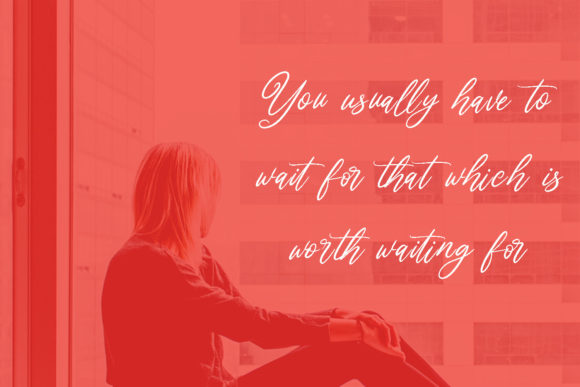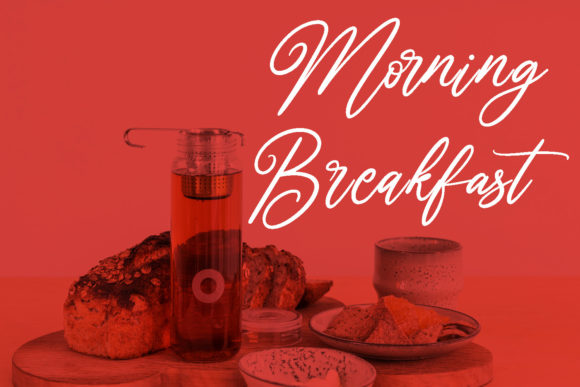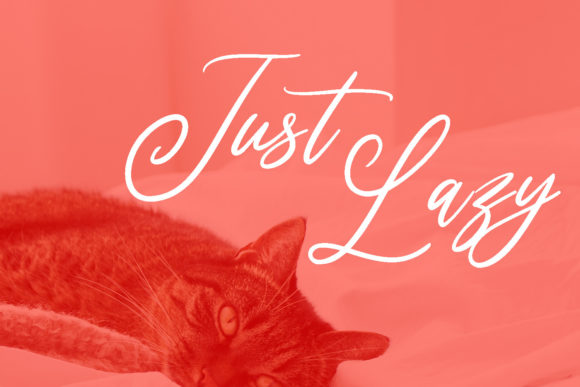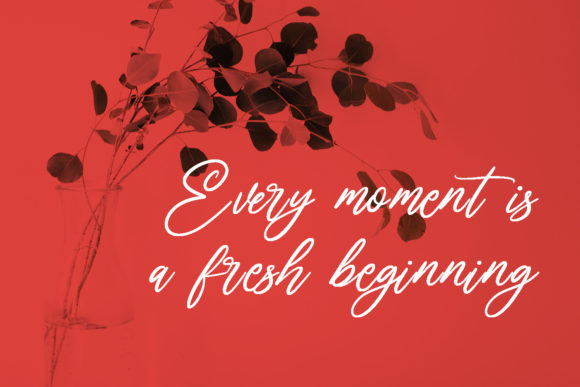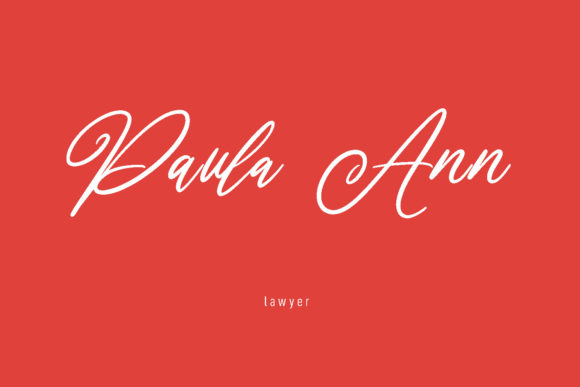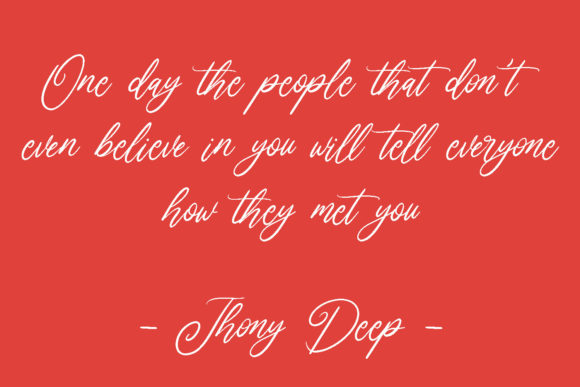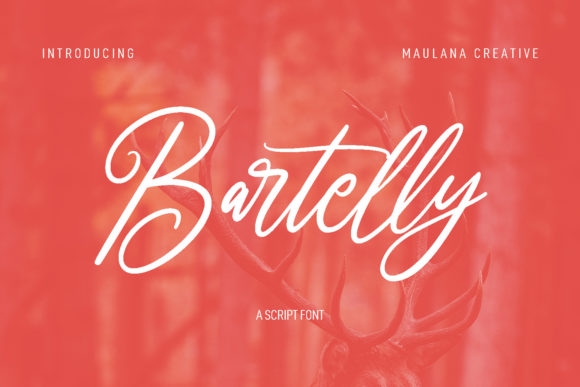
Bartelly Script Font: Elevate Your Designs with Elegance and Sophistication
In the world of typography, a well-crafted font can make all the difference in elevating your design from ordinary to extraordinary. If you’re a designer or crafter looking for a font that exudes elegance and sophistication, look no further than the Bartelly Script Font. This stunning script font is perfect for a wide range of design projects, from logos and t-shirt printing to creative products and more.
The Beauty of Bartelly Script Font
Bartelly Script is a fancy script font that boasts beautiful and balanced characters, carefully crafted to fit seamlessly into the world of large design. Its unique and flowing style is sure to capture the attention of your audience, making it an ideal choice for designers and crafters who want to create a lasting impression.
One of the standout features of Bartelly Script Font is its versatility. Whether you’re working on a branding project, creating custom merchandise, or designing a website, this font is sure to adapt to your needs. Its elegant and refined style makes it perfect for a wide range of applications, from formal and professional to creative and playful.
Key Features of Bartelly Script Font
- Beautiful and balanced characters: Each character in the Bartelly Script Font has been carefully crafted to ensure that it is both aesthetically pleasing and highly legible.
- Fancy script style: The font’s script style is perfect for creating elegant and sophisticated designs that are sure to impress.
- Versatile and adaptable: Whether you’re working on a logo, t-shirt, or website, Bartelly Script Font is sure to adapt to your needs.
- Perfect for branding projects: The font’s unique and memorable style makes it an ideal choice for branding projects, helping you to create a lasting impression on your audience.
Why Choose Bartelly Script Font?
With so many fonts to choose from, why should you choose Bartelly Script Font for your next design project? Here are just a few reasons why this font stands out from the crowd:
- Unique and memorable style: The Bartelly Script Font has a unique and memorable style that is sure to capture the attention of your audience.
- Elegant and sophisticated: The font’s elegant and sophisticated style makes it perfect for creating high-end designs that exude luxury and refinement.
- Highly legible: Despite its elegant style, the Bartelly Script Font is highly legible, making it perfect for use in a wide range of applications.
Here are a few tips for getting the most out of the Bartelly Script Font:
- Use it sparingly: While the Bartelly Script Font is beautiful, it can be overwhelming if used too much. Use it sparingly to create a lasting impression.
- Pair it with other fonts: The Bartelly Script Font pairs well with other fonts, making it perfect for use in combination with other typography.
- Experiment with different sizes and colors: Don’t be afraid to experiment with different sizes and colors to find the perfect combination for your design.
In conclusion, the Bartelly Script Font is a stunning script font that is perfect for designers and crafters looking to elevate their designs with elegance and sophistication. With its beautiful and balanced characters, versatile style, and high legibility, this font is sure to become a favorite in your design arsenal. So why wait? Download the Bartelly Script Font today and start creating stunning designs that are sure to impress.